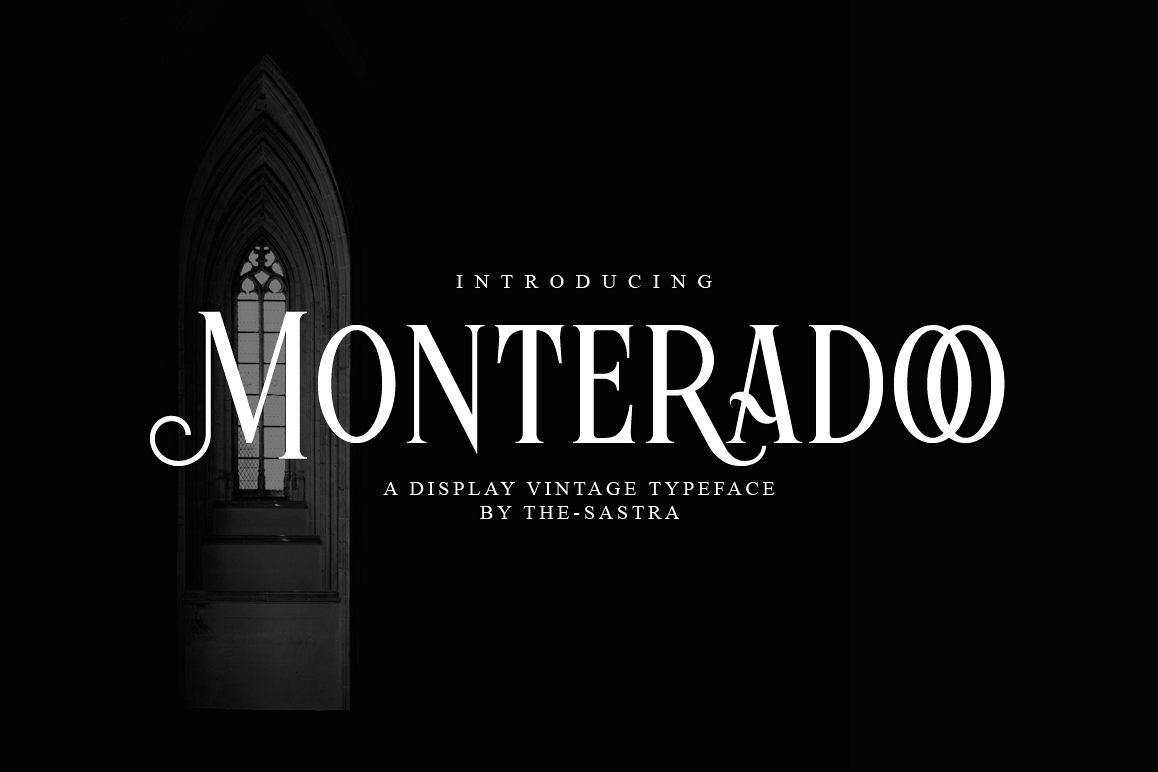
Monteradoo
This Monteradoo font is
inspired by Traditional, tribe, ink and Tattoo.
Monteradoo font is perfect for badges, branding, labels, apparel,
headlines, signage, logo, quote, apparel and other creative
applications.